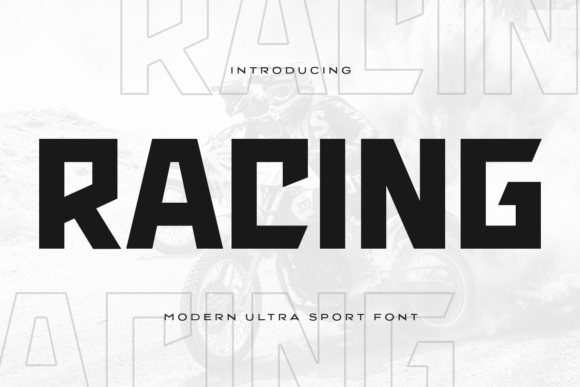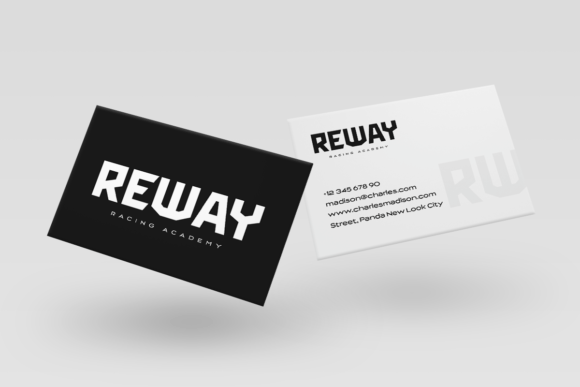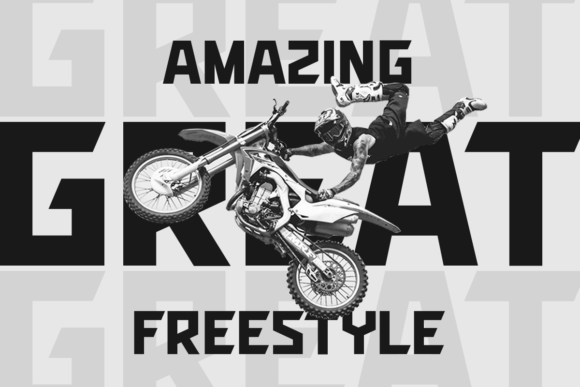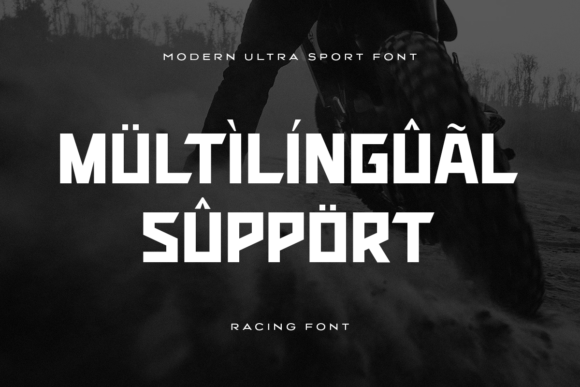
Racing Font
About the Racing Font
Make a bold statement with Racing Font, a powerful and memorable font. Racing is a modern ultra sports font that has been created specially for branding, titles and more stand out typography for sport and action. It’s so perfect to add your projects and headline overview for sports, technology, actions, fighting themes and so much more.
Racing excels in headlines, logos, and short impactful phrases where its bold, energetic character shines. It’s ideal for projects related to sports, gaming, technology, and anything requiring a high-octane visual identity. Avoid using it for body text or lengthy content; its aggressive forms are not suitable for readability in smaller sizes.
Pairing Racing with a clean sans-serif like Open Sans for body copy provides a strong contrast and enhances legibility. For a more sophisticated feel, consider pairing it with a classic serif like Garamond for supporting text. A geometric sans-serif like Futura could also work well, offering a modern, balanced aesthetic.
The font’s core personality is aggressive and dynamic, conveying speed, power, and modern innovation. Brands seeking to project a sense of high performance and cutting-edge technology would find Racing an effective choice.